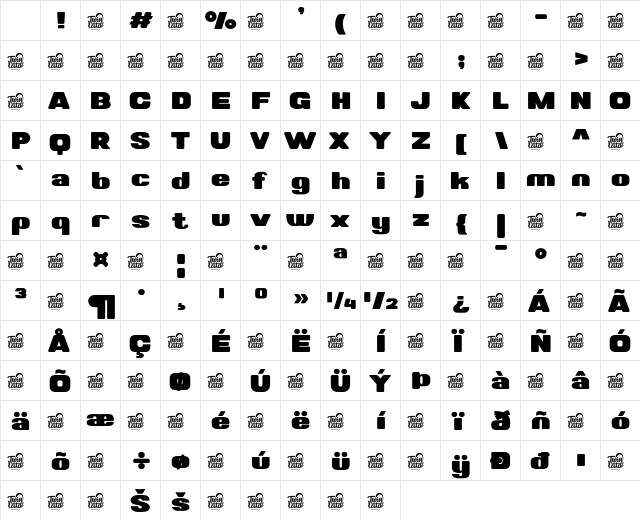
Valonik Black is a composed and adaptable typeface that performs quietly and consistently across a wide range of design contexts.
Pro Tip: Use Valonik Black in both headline and body roles to test its range before committing to a single application.